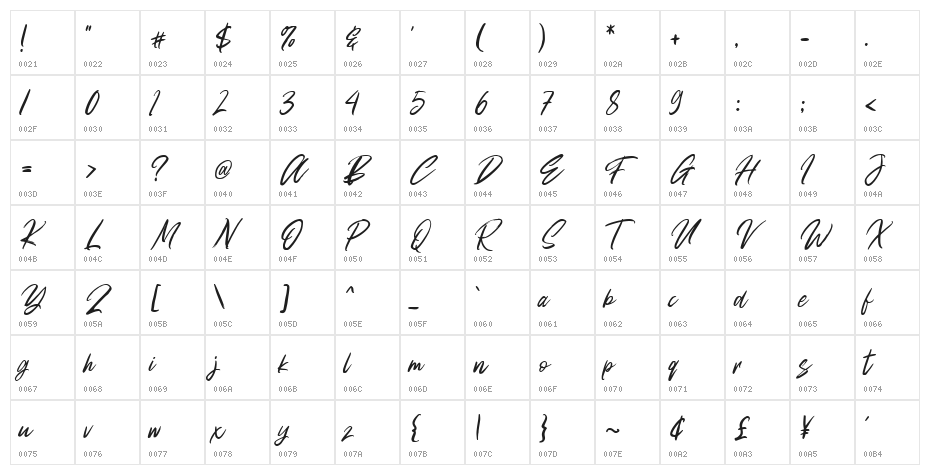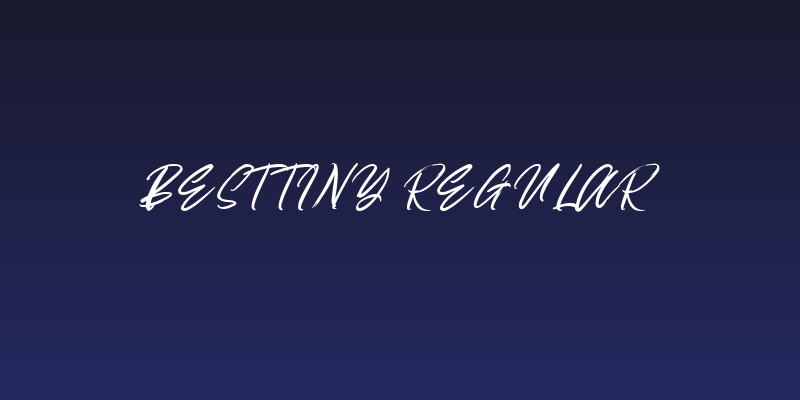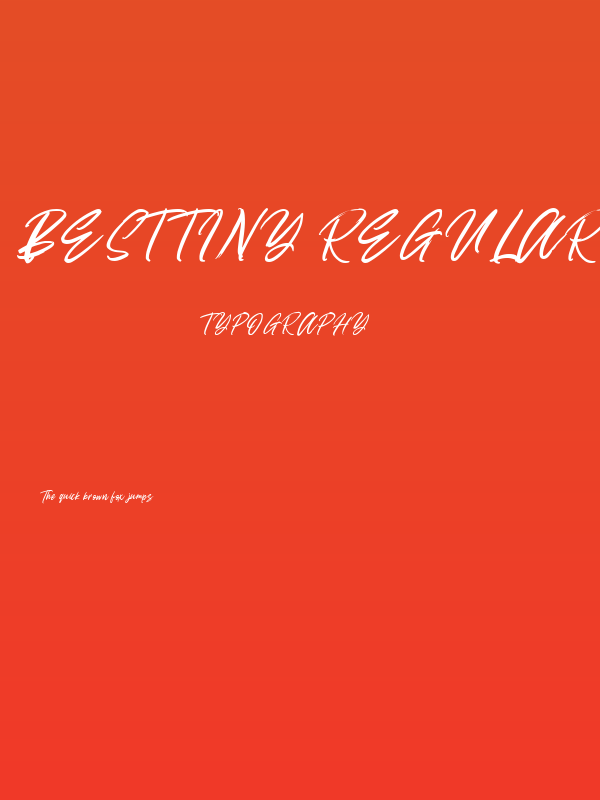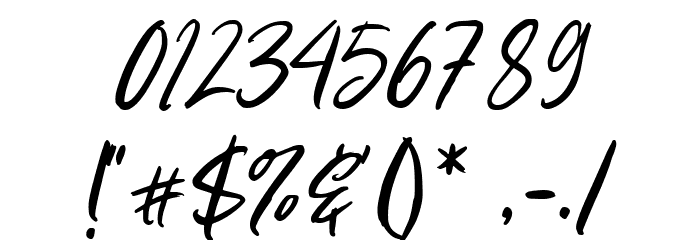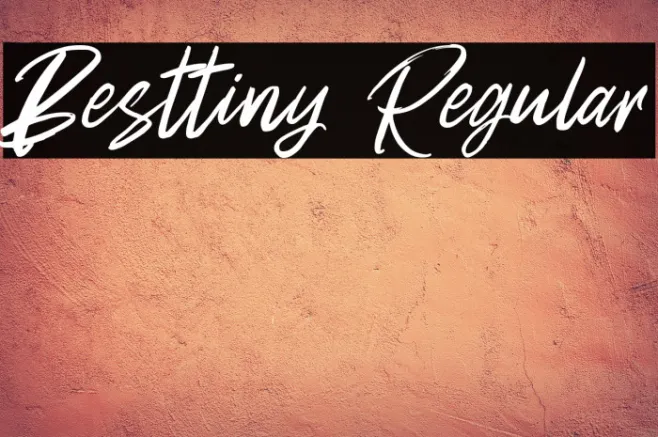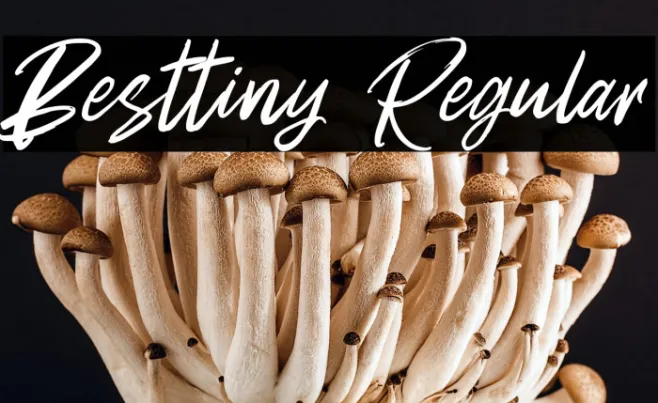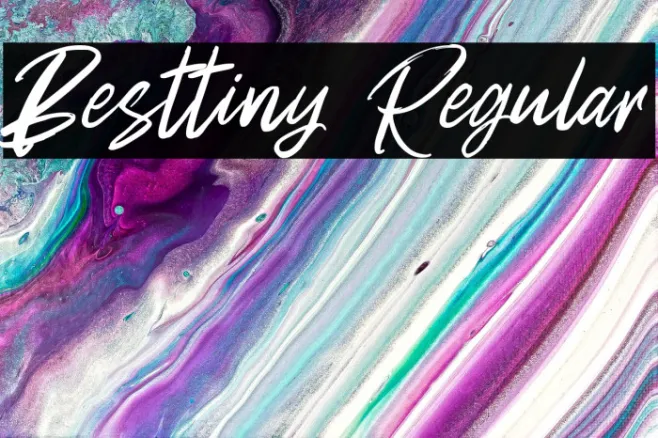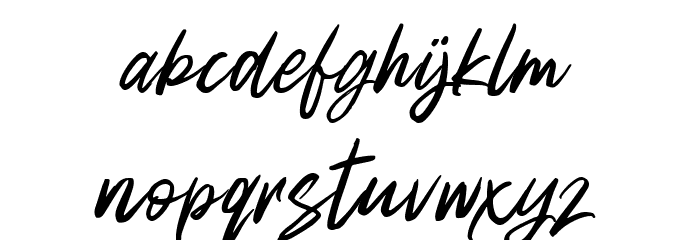
Besttiny Regular Font
Besttiny Regular Description
This font features a dynamic and expressive handwritten style, characterized by fluid and connected strokes that mimic natural handwriting. The uppercase letters are bold and slightly slanted, giving a sense of movement and energy. Lowercase letters maintain the same fluidity, with some characters featuring distinctive loops and curves. The numerals are consistent with the overall style, offering a playful yet legible appearance. Special characters are integrated seamlessly, maintaining the handwritten aesthetic. This font is ideal for projects that require a personal touch or a creative flair.